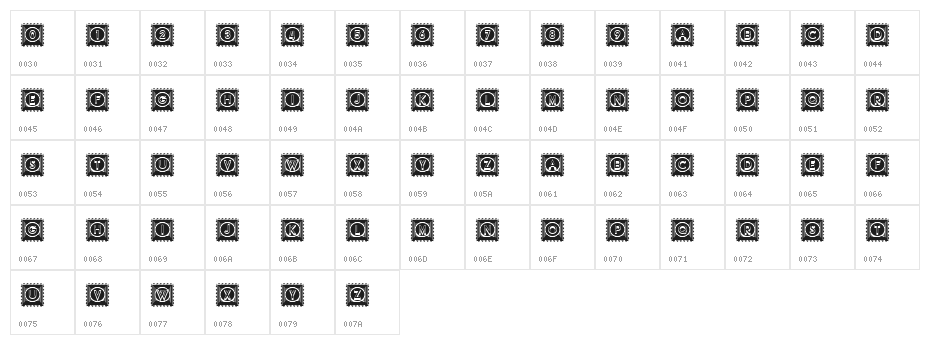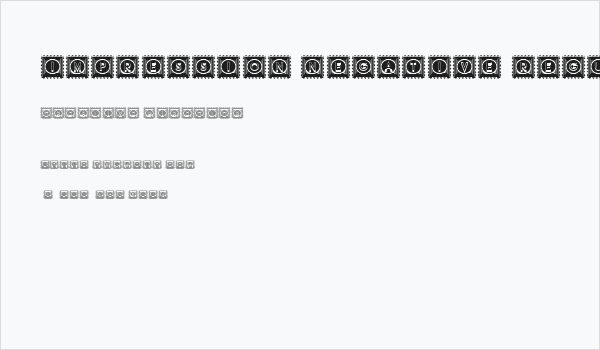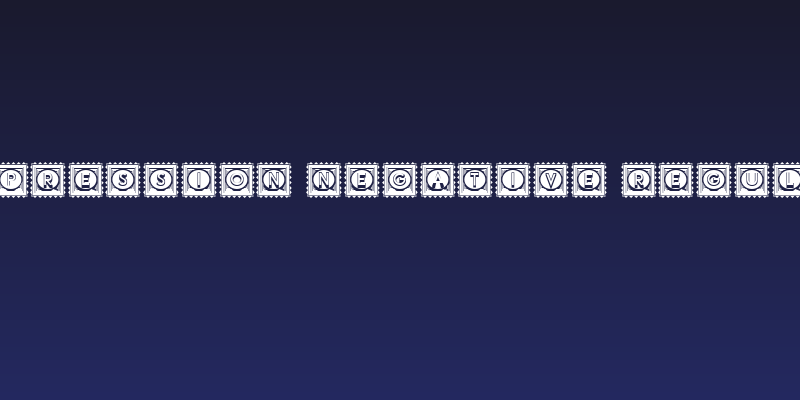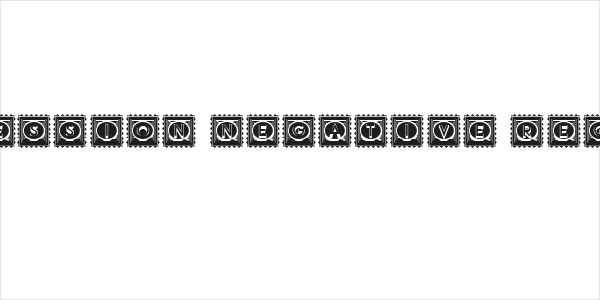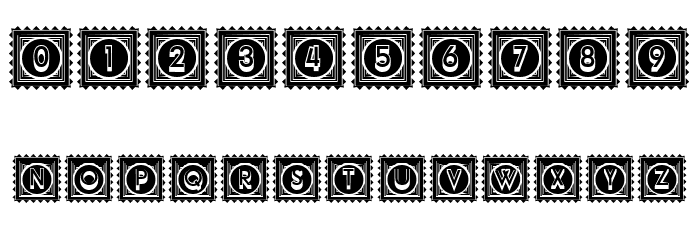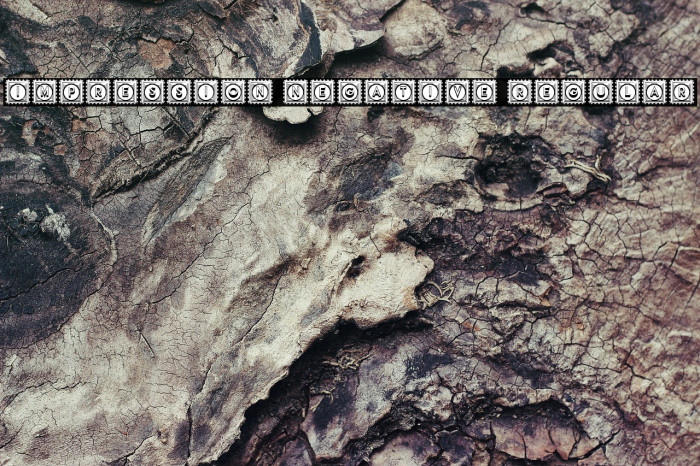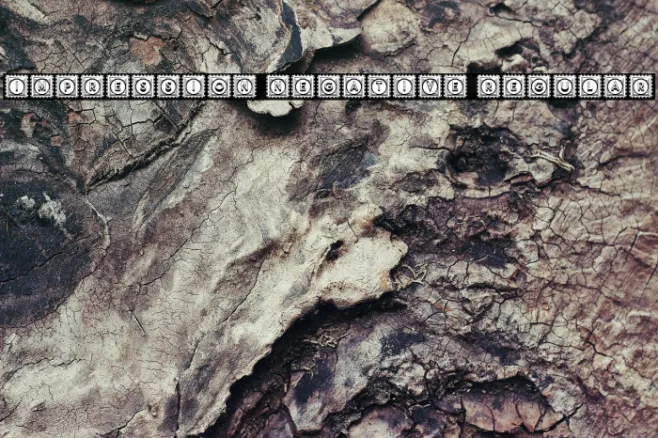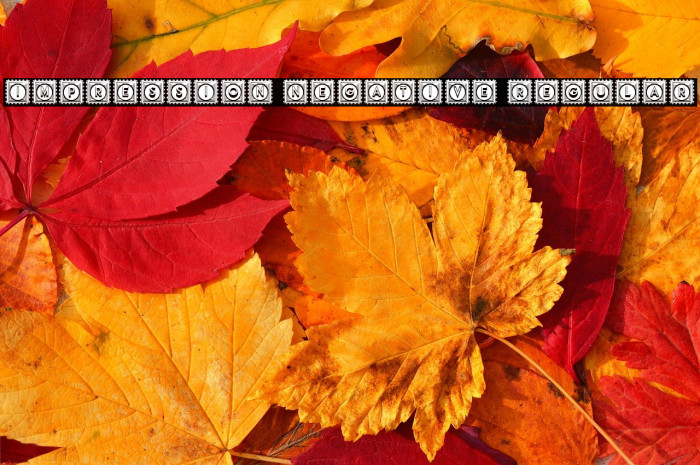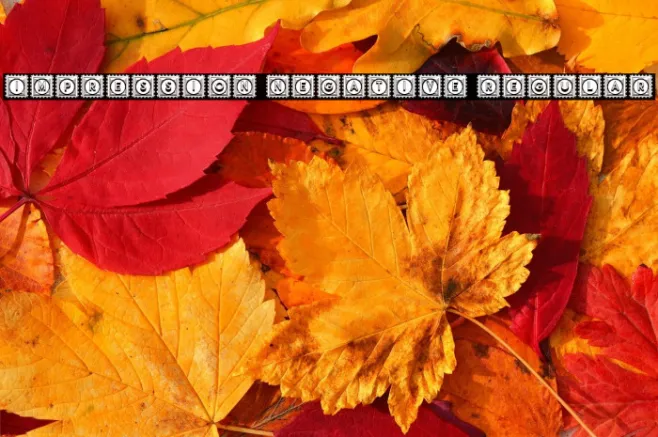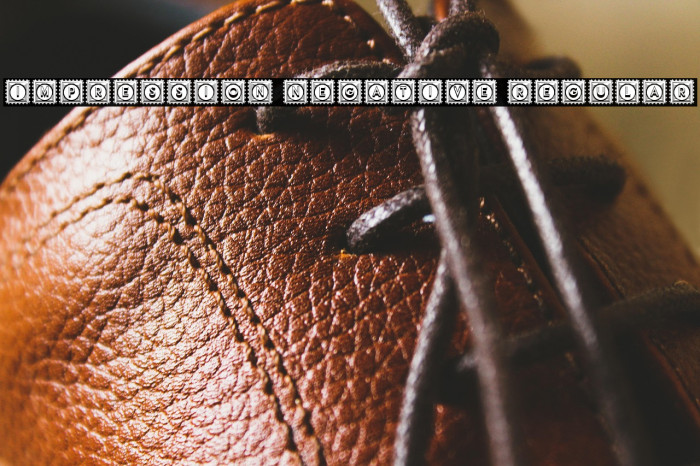
Impression Negative Regular Font
Impression Negative Regular Description
This font features a unique and bold design with each character enclosed in a square, stamp-like border. The letters are uppercase and have a distinct, playful style that stands out due to the high contrast between the thick, black outlines and the white interior. The font's decorative nature is emphasized by the jagged edges of the border, resembling a postage stamp. The characters are evenly spaced, providing a balanced and cohesive appearance. This font is ideal for projects that require a strong visual impact and a touch of whimsy.
| Proposed Projects | Ideal for posters, greeting cards, children's books, and playful branding. |